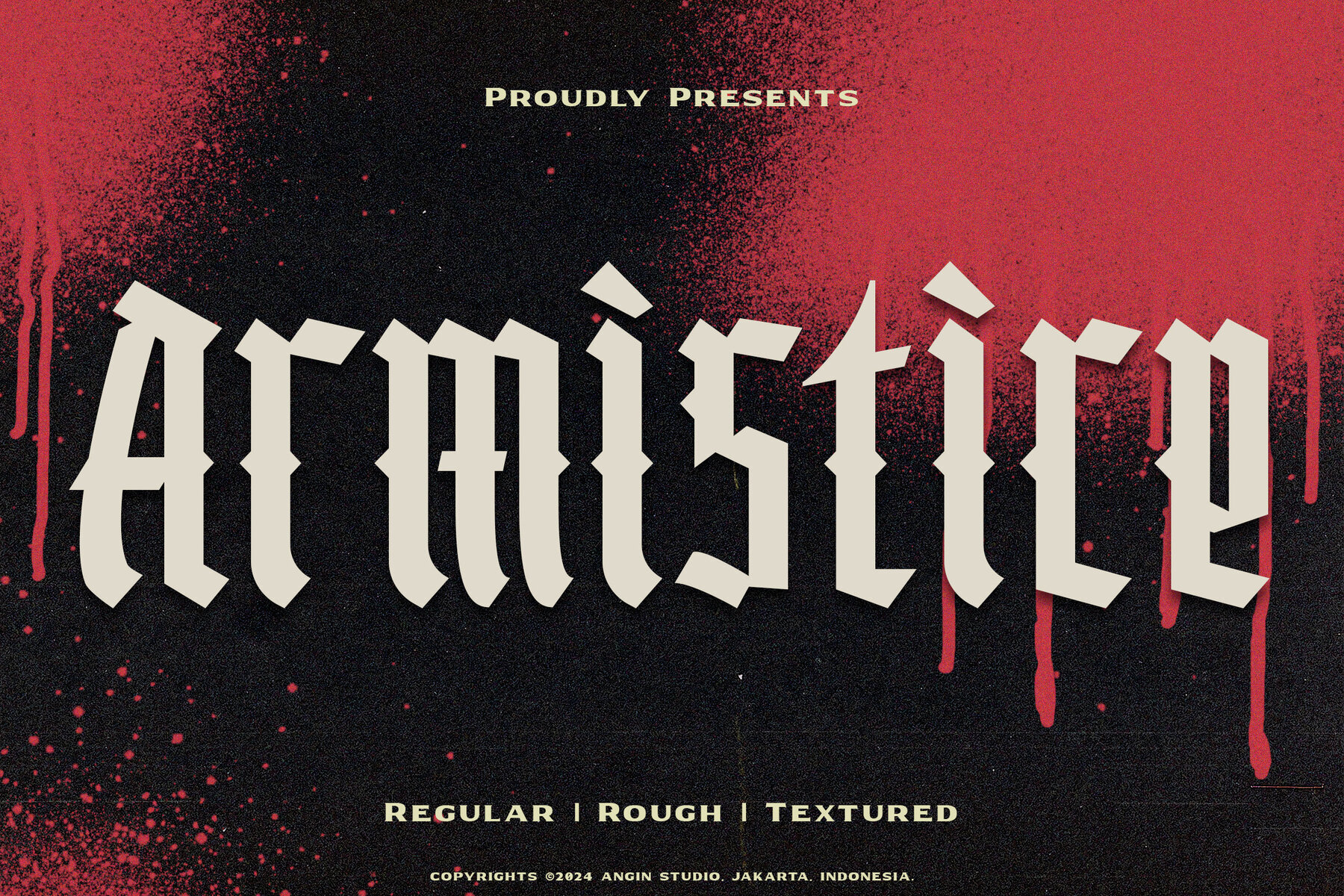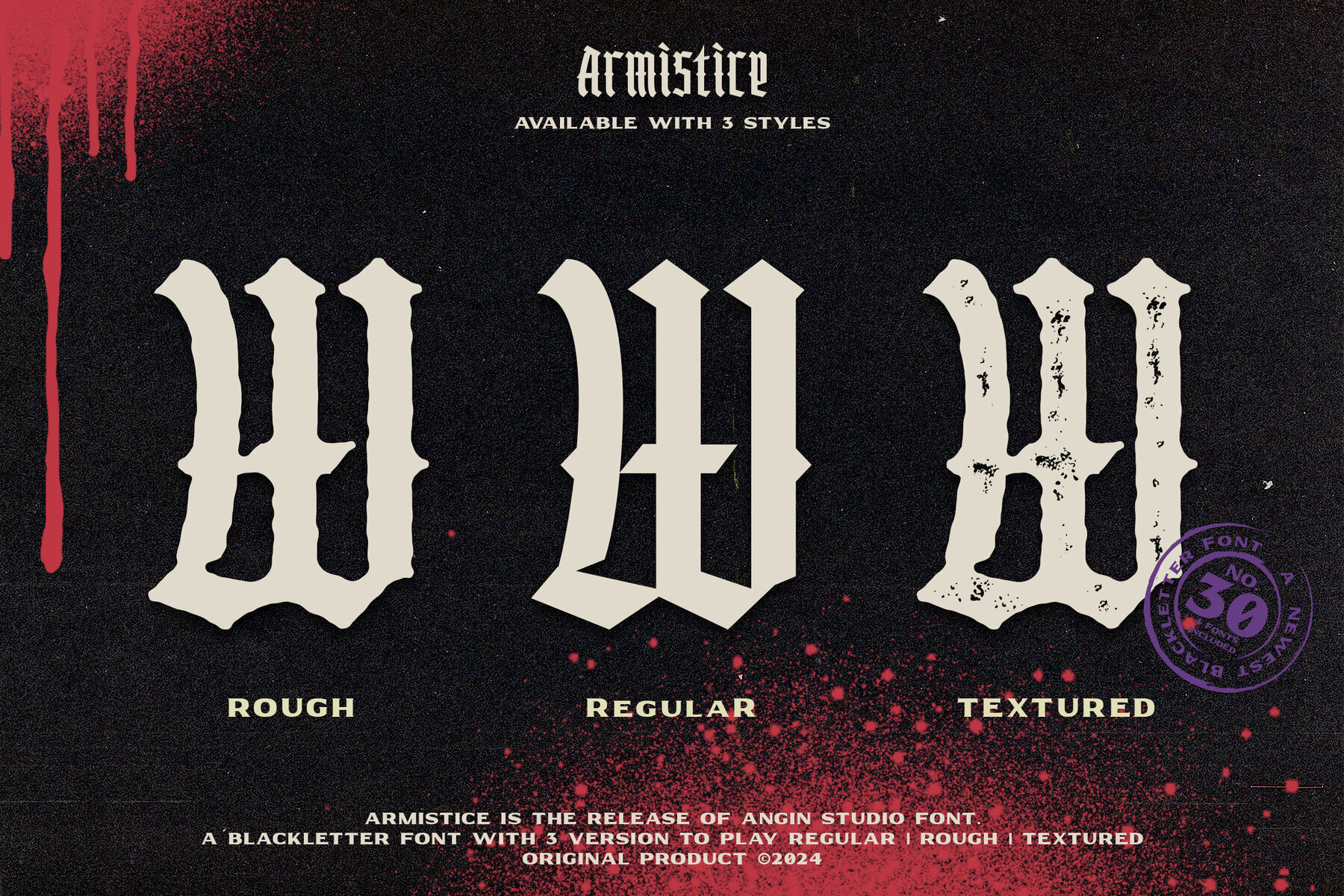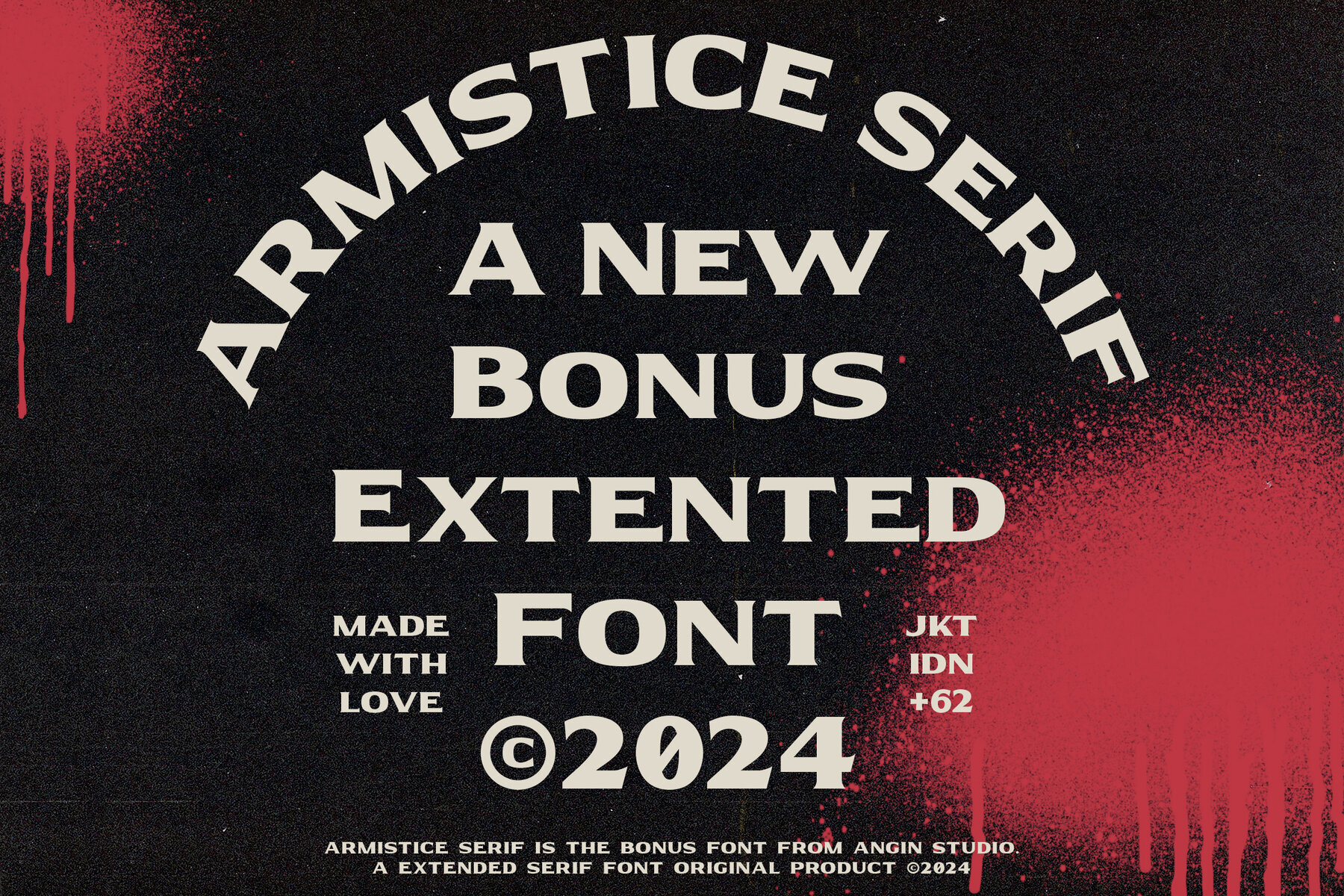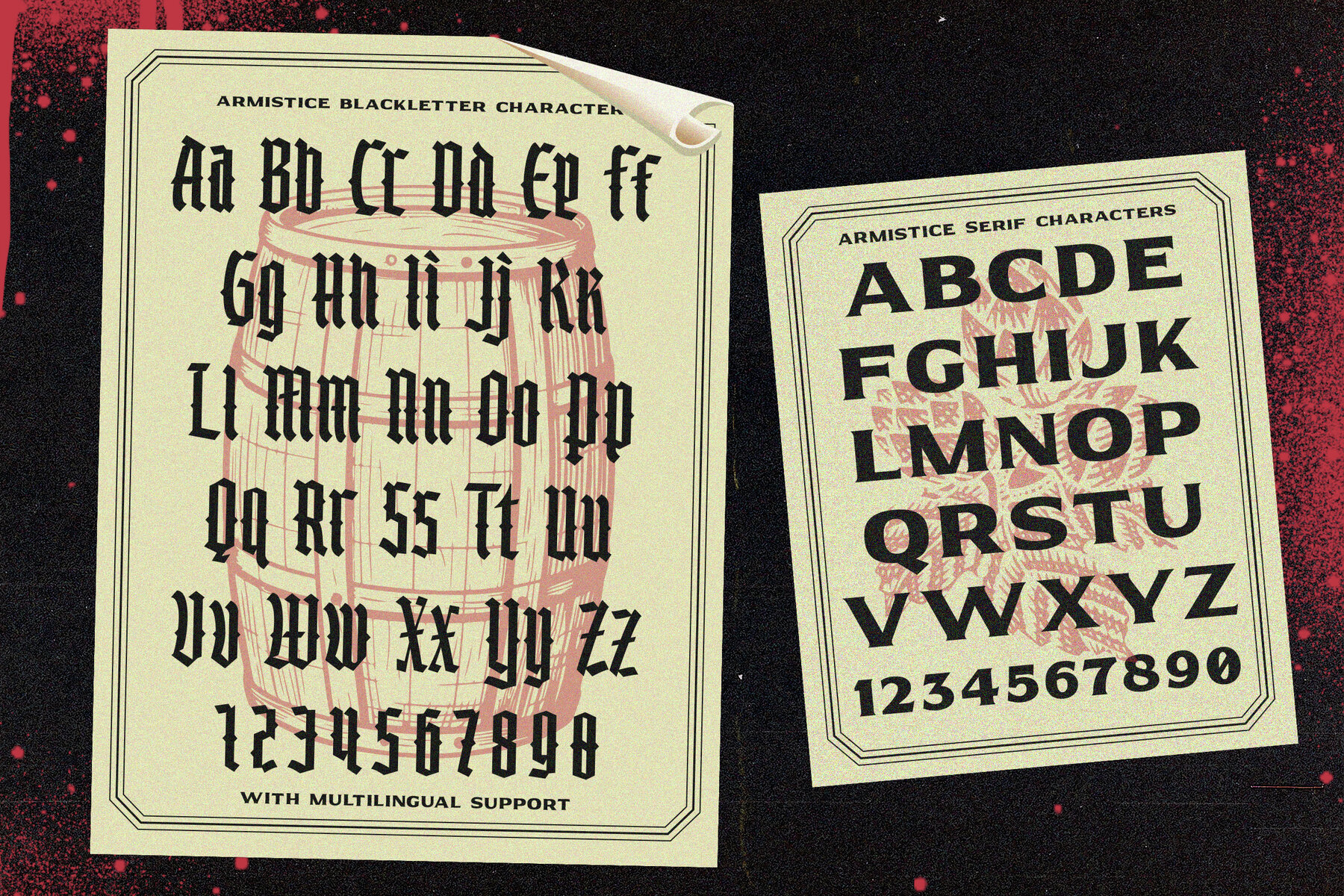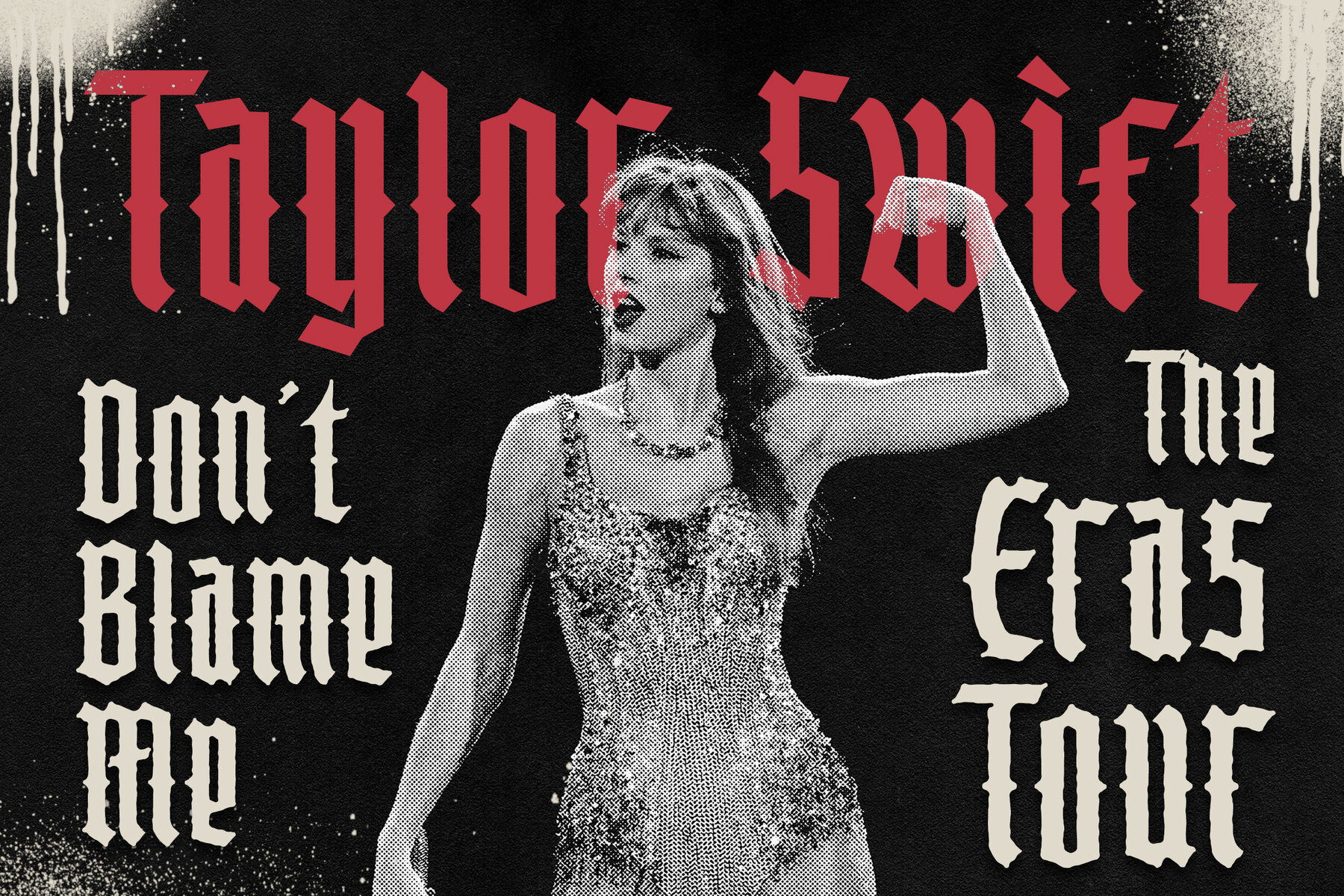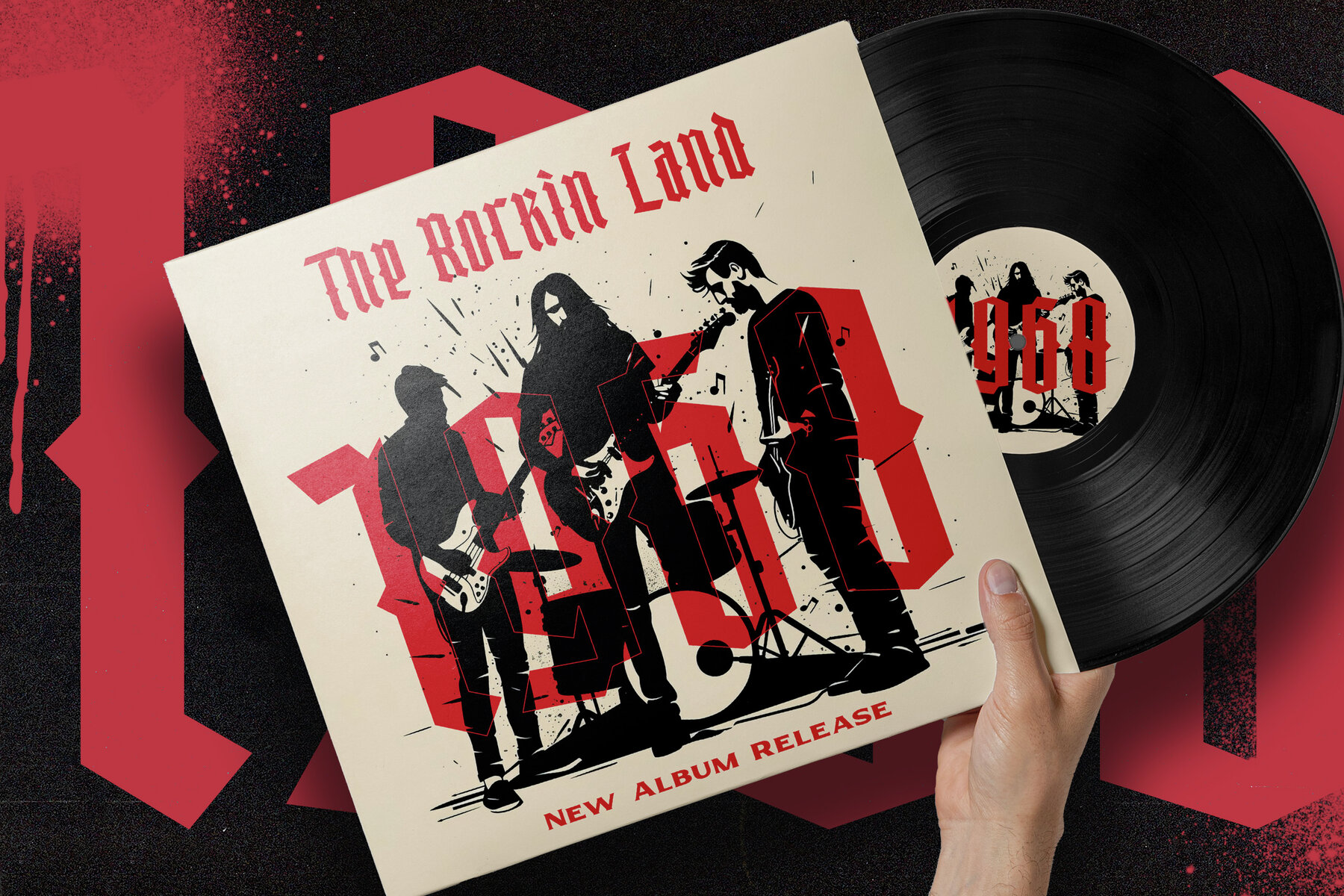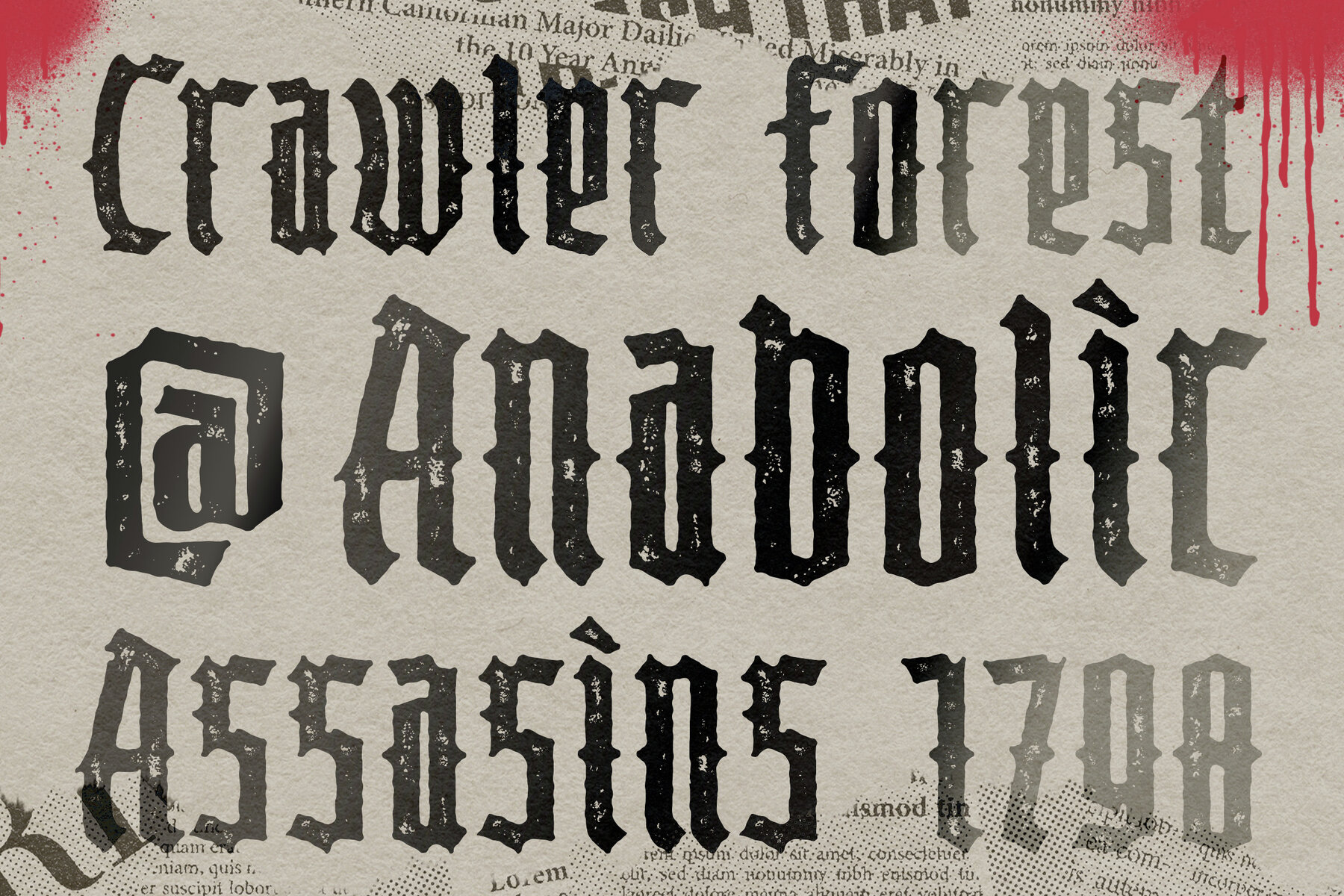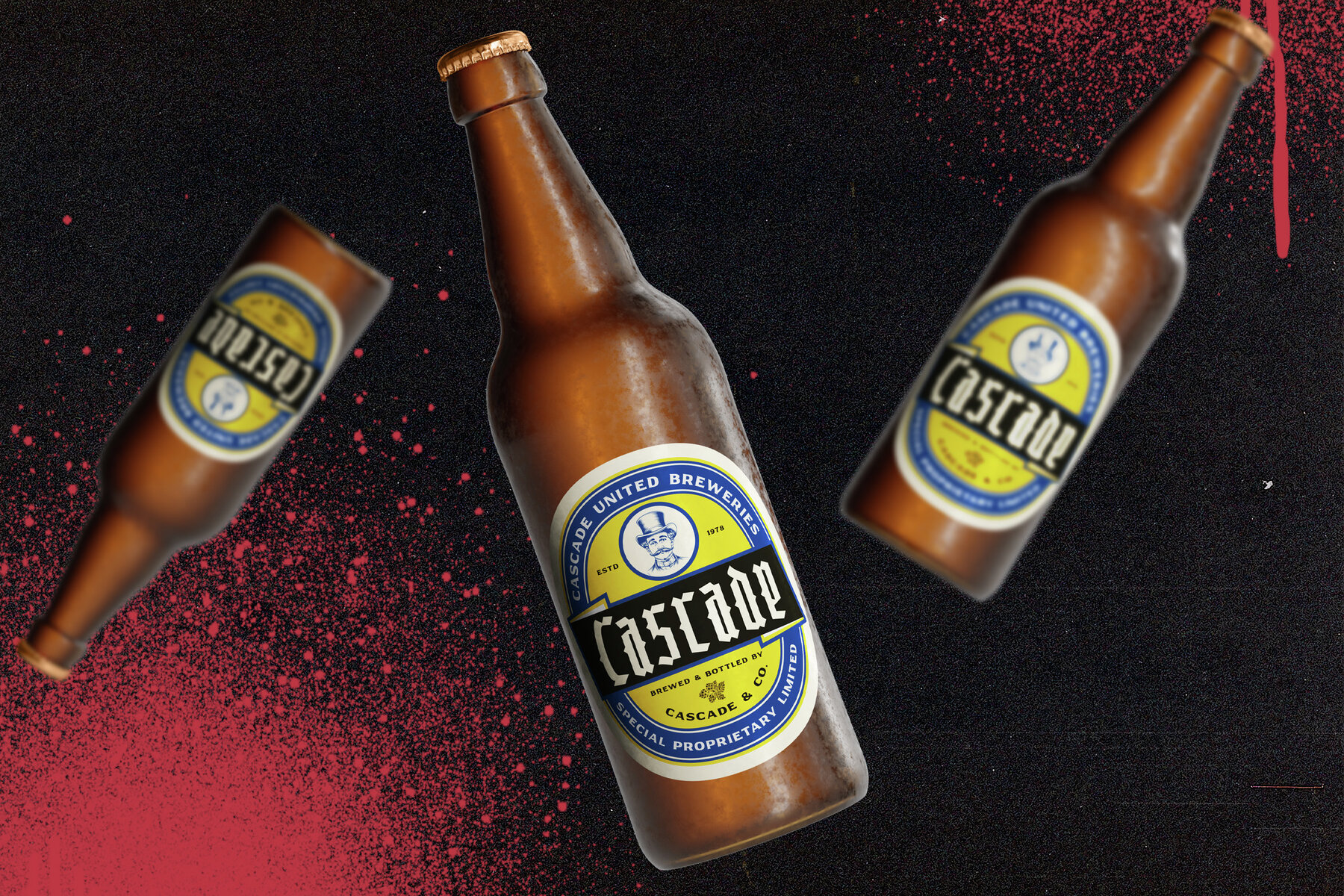
Armistice Font
Armistice Regular
Armistice Rough
Armistice Serif
Armistice Textured
Step into the world of medieval manuscripts with Armistice, a condensed blackletter font that gracefully merges historical sophistication with contemporary practicality. Ideal for those seeking to incorporate a touch of old-world allure into modern design projects, Armistice delivers a unique blend of elegance and functionality. Whether you're crafting a vintage poster or elevating your brand's visual identity, this font ensures your project stands out. Infuse your designs with a piece of history and make bold typographic statements by choosing Armistice. The collection offers a range of styles to bring versatility and character to your creative endeavors.Armistice: A Timeless Blackletter Font